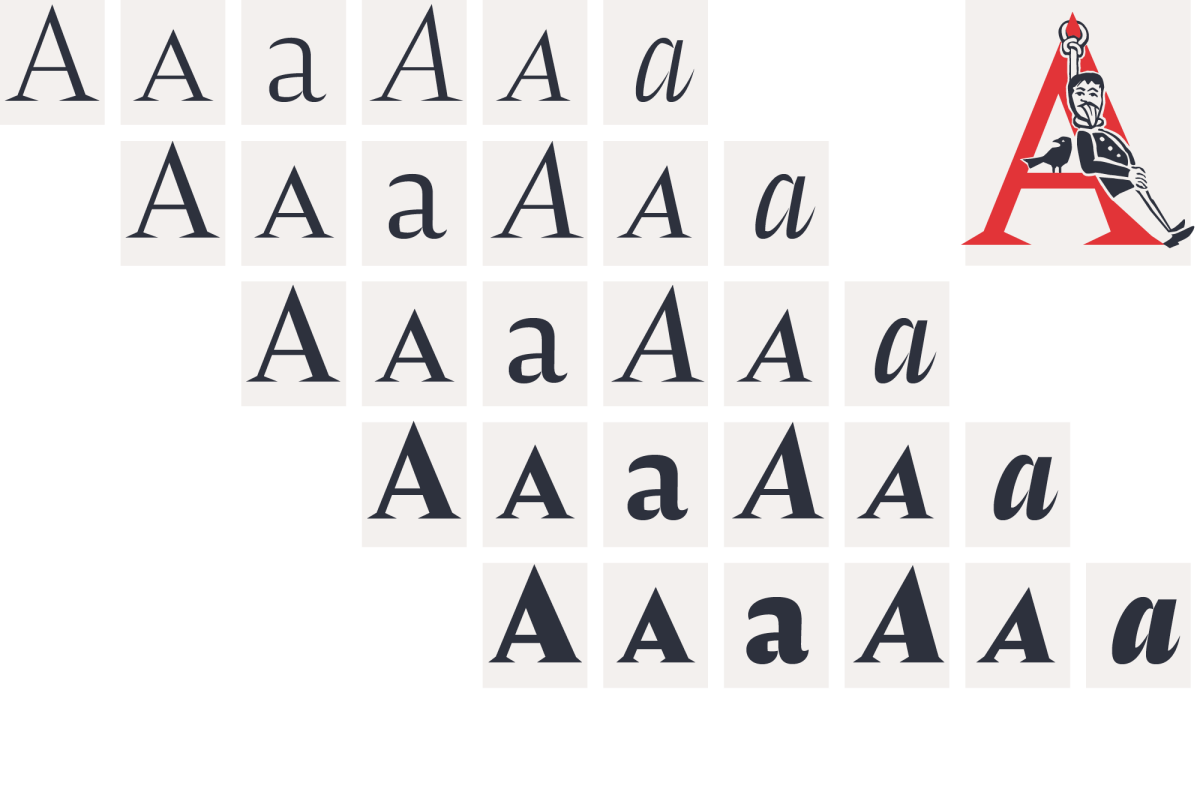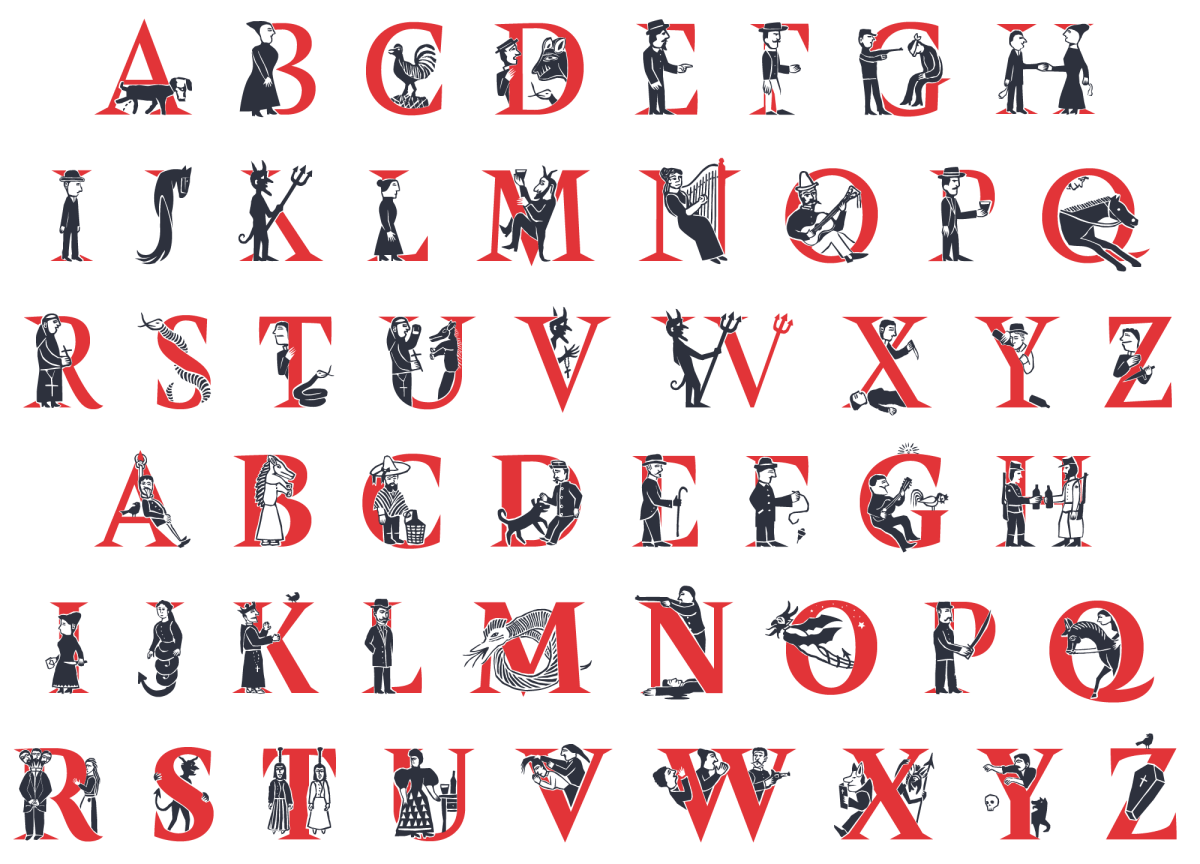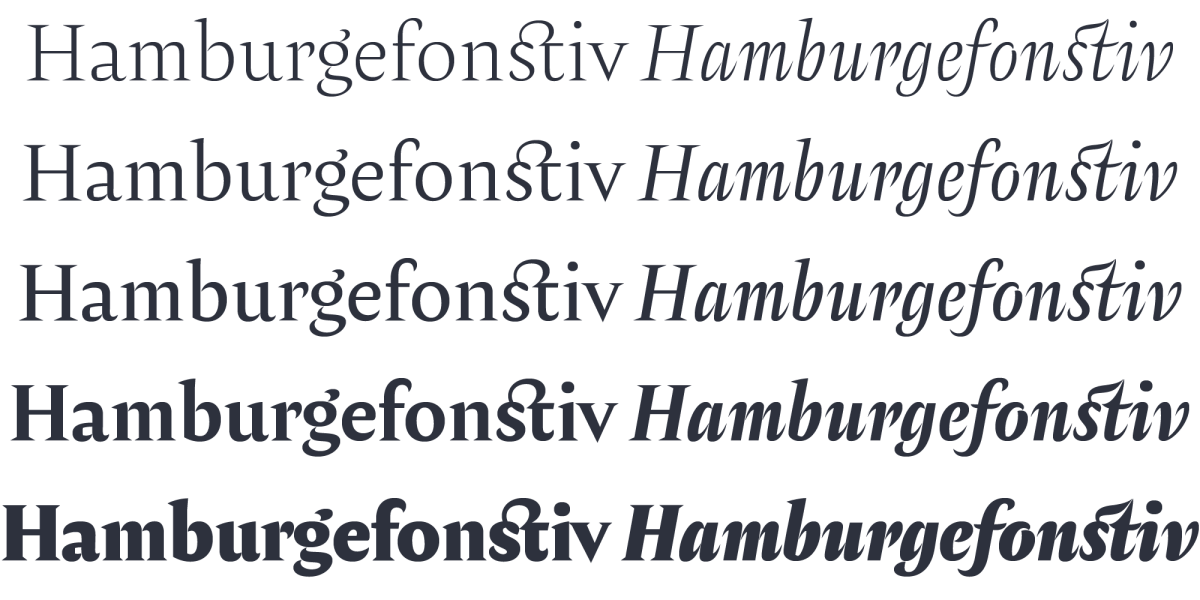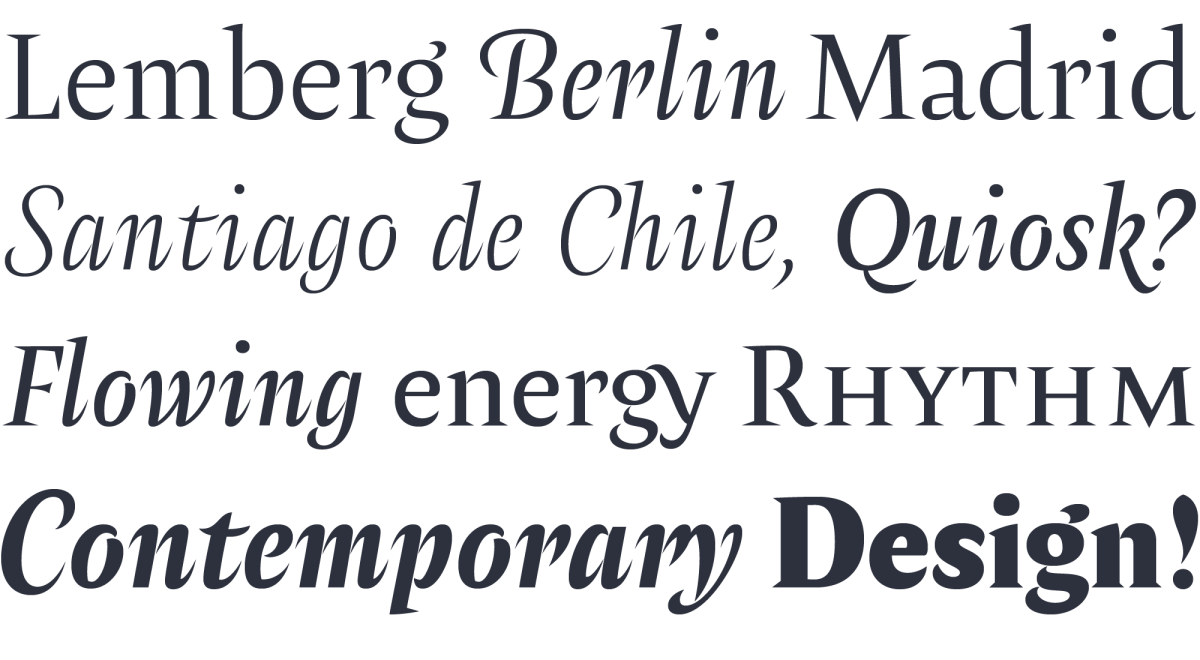
Amster. When sharpness meets refinement
Designed in Chile by Francisco Gálvez with a clear idea on how refinement & austerity can meet harmoniously, the typeface Amster builds a text that combines high readability and charm.
Amster has five weights of roman & cursive fonts, both with smallcaps, all figures and currencies, ornaments, tons of ligatures and all fully equipped with several contextual sorts. Amster is a very versatile type, it allows for the widest range of applications: from screen to print, from small text to display sizes, from science to poetry.
Singular, energetic rhythm
Several characters in Amster stand out for their beauty. Also its even spacing and precise sense of rhythm makes it an outstanding piece of type design. A special kind of energy flows throughout Amster in the form of vigorous shapes & countershapes which give the text an exceptional liveliness that stimulates the reader.
Style: Precise and Friendly
Sharp serifs and frank counterforms give Amster an atmosphere of precision and certainty, while the subtle modulation of strokes creates a polite and friendly text. The design of the cursives takes the sharpness of the romans into a vigorous rhythm, making them ideal companions within the text line.
Inspiration: Mauricio Amster (1907-1980)
Amster pays tribute to Mauricio Amster, a passionate graphic artist who largely contributed to Chilean visual culture in the nineteen fourties and fifties. Born in Lviv (then Poland, today Ukraine), his parents had died at a Nazi camp when he moved to Berlin where he studied graphic arts in Bauhaus times. Then he moved to Spain where he joined the communist party, began cultural activism besides ante-fascist intellectuals such as the Chilean poets Pablo Neruda and Vicente Huidobro. Having worked for the ministry of public instructions & arts, in 1939 he and his wife escaped Franco’s regime to France, and later migrated to Chile with the help of Neruda. After an intense working life in the graphics arts, book design, book edition, writing, and teaching, Amster died in 1980 in Santiago.
Sample of book artwork entirely handwritten by Mauricio Amster.
Pliegos de cordel (‘string sheets’)
Mauricio Amster designed more than 500 books. A fascimile edition of the Ten Chilean popular engravings deserves our attention. Published in 1973 by the Editorial Universitaria and curated by renown historian Alamiro de Ávila Martel this book tells the story of the pliegos de cordel (as they were displayed in the street hanging from a string tied from tree to tree), also known as the Lira popular. Its text begins like this: España fue siempre un vasto campo de produccion de poesía popular: la larga empresa de la Reconquista frente a los musulmanos produjo una épica culta junto a la cual (…) se acuñaba una poesía popular, cuya última concreción, en ese ámbito épico, fue el Romancero (…). That first capital letter E was designed by Amster for that particular edition, and it was the excuse for Francisco Gálvez to illuminate two whole alphabets of initials.
A sample sheet of a Lira Popular
Amster singular initials
In those loosely printed sheets (Lira popular) that massively circulated in Chile between the late 19 and early 20 century popular poets published their verses. Therefore they reached an unprecedented means to spread their voice, putting the working-class feelings into public scene. Being for some an early expression of the yellow press, always illustrated by engravings often of innocent style, those verses vividly reflected the current facts: robberies, crimes, suicides, political criticism, natural disasters and all kind of wondrous phenomena.
Based on Mauricio Amster’s idea Francisco Gálvez drew two sets of wonderful initials, recapturing the protagonists of those natural and supranatural stories. Farmers & animals, citizens & drunks, criminals & victims, priests & devils, all dance together in this handsomely illuminated bestiary of letters, ideal for fictional or poetic atmospheres. They are all bicolor and can be used as desktop and as webfont too. For more information see our tutorial video just below.